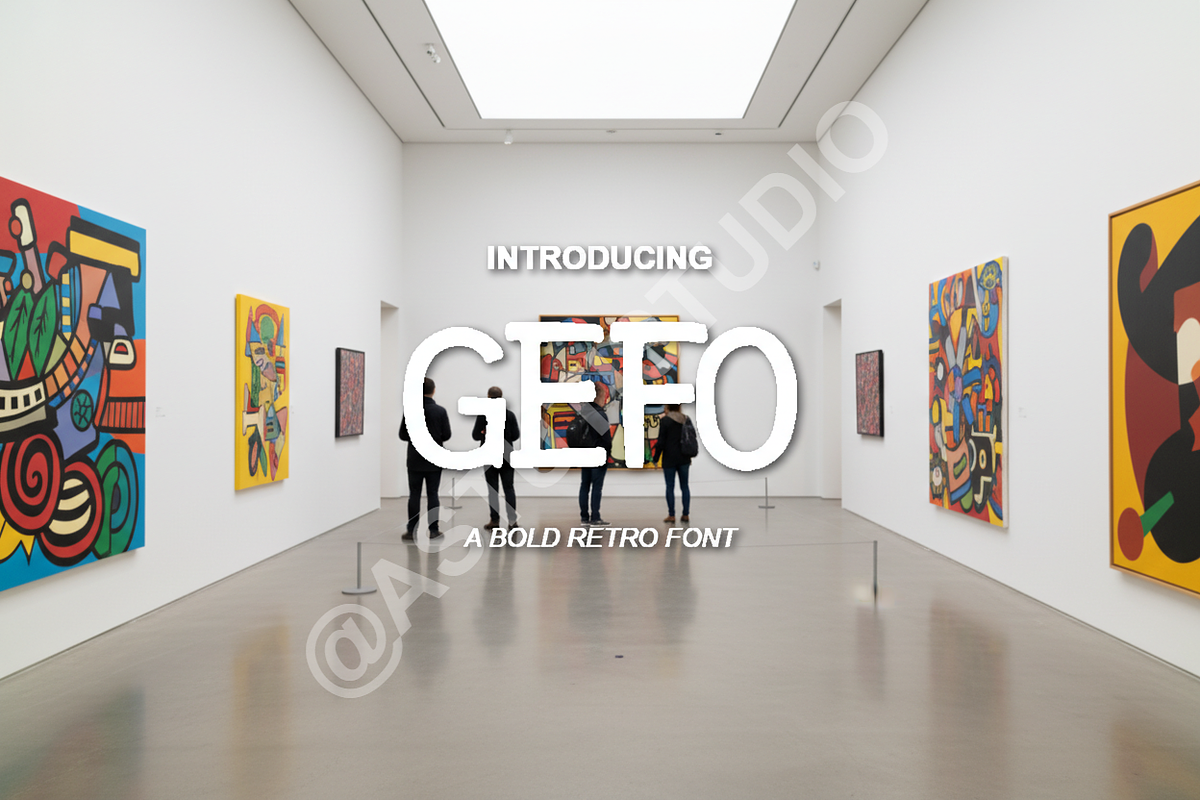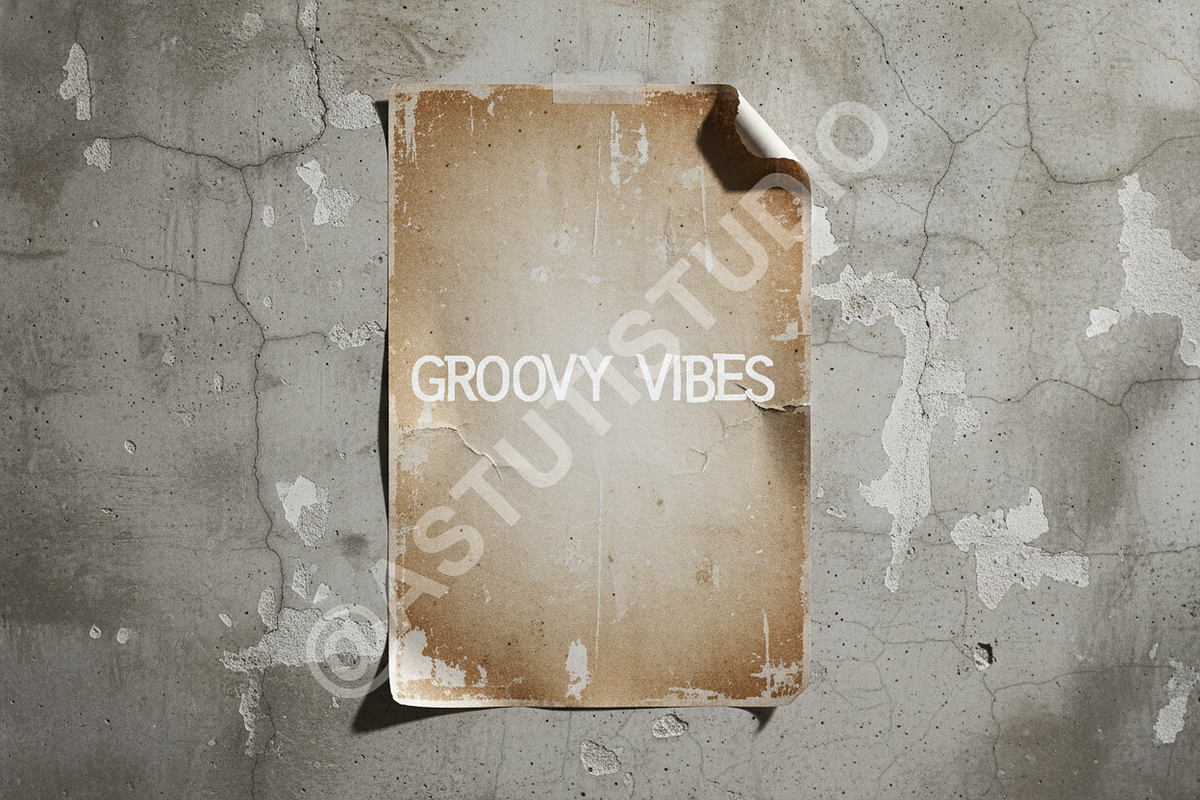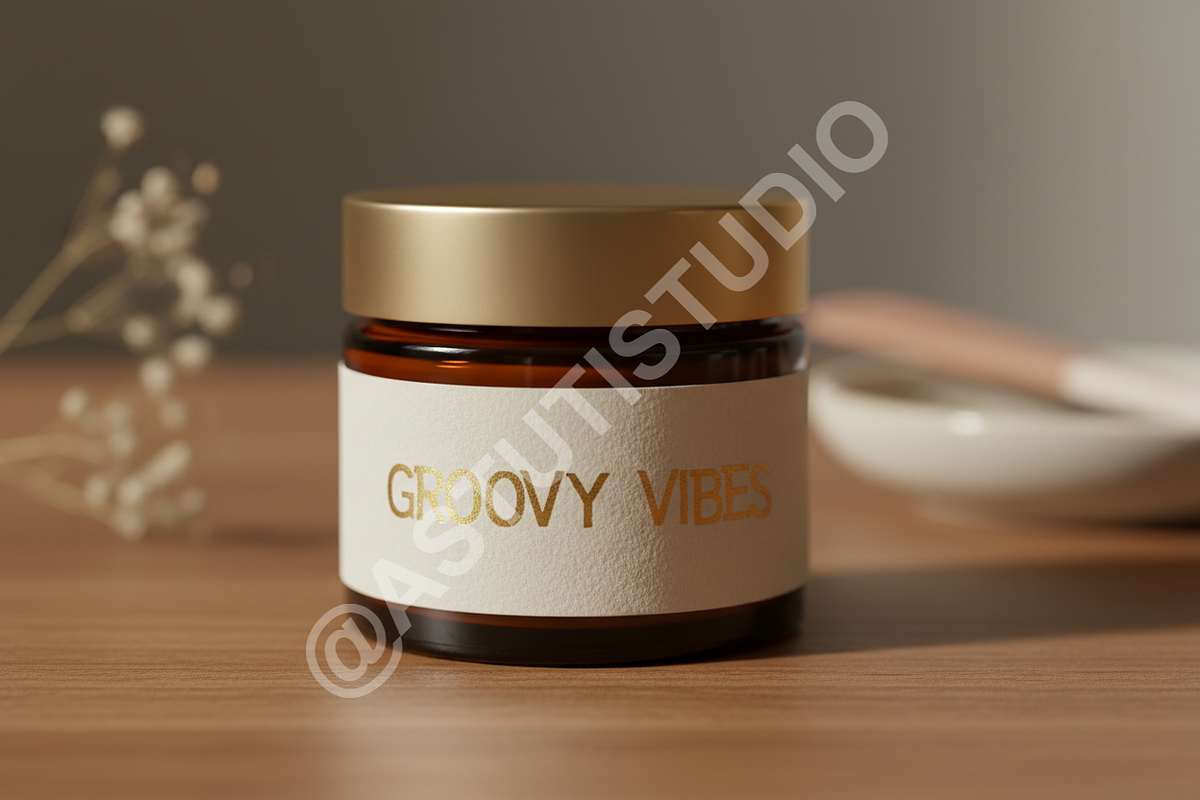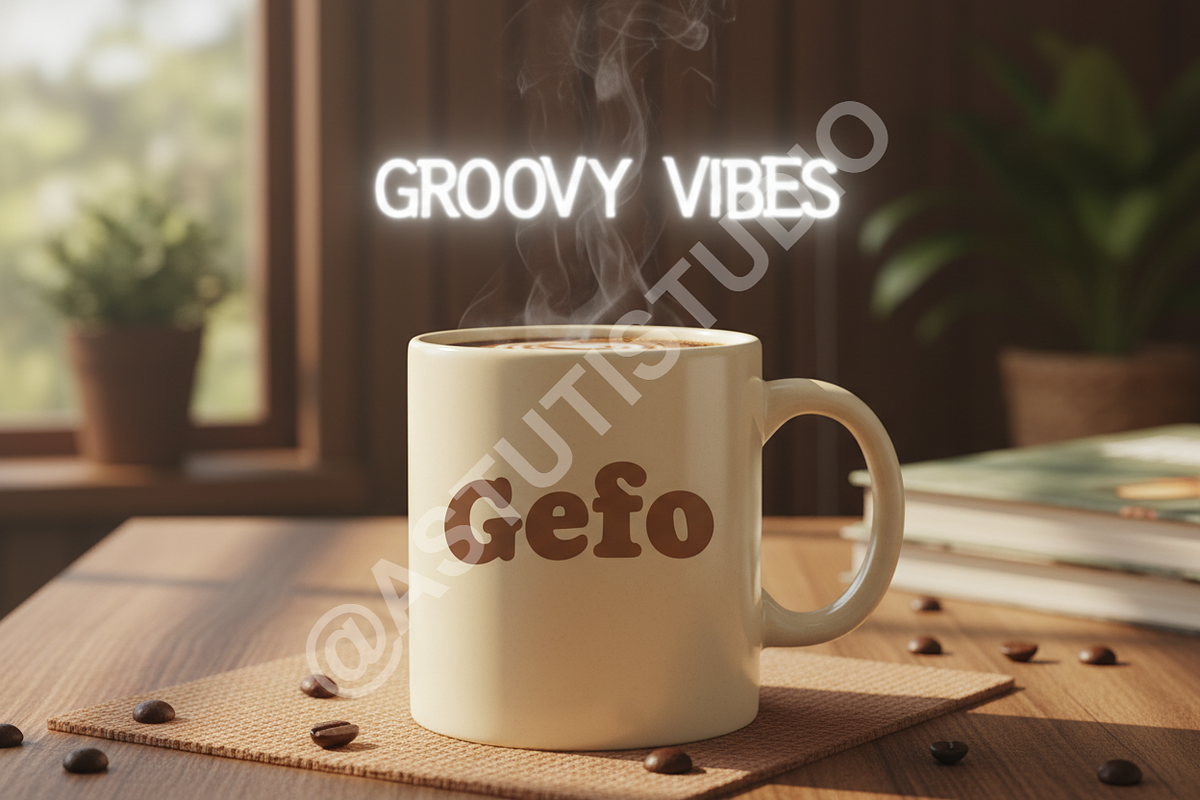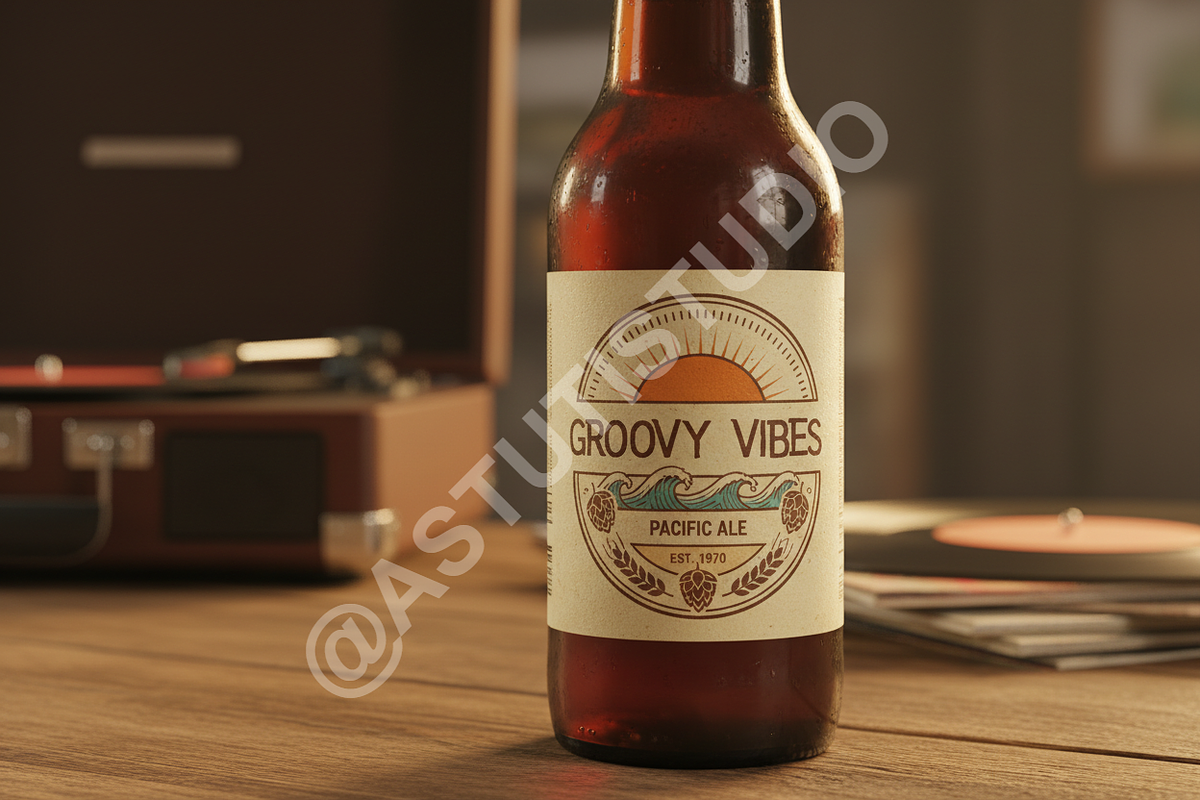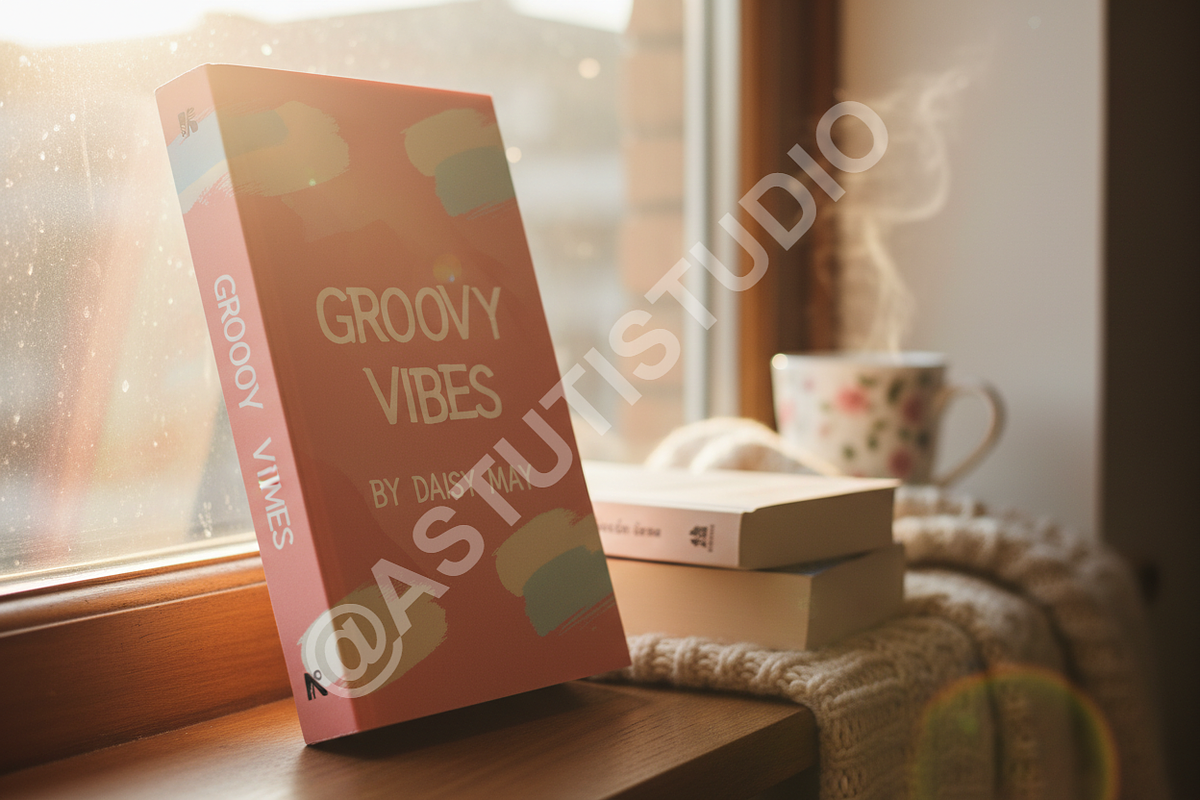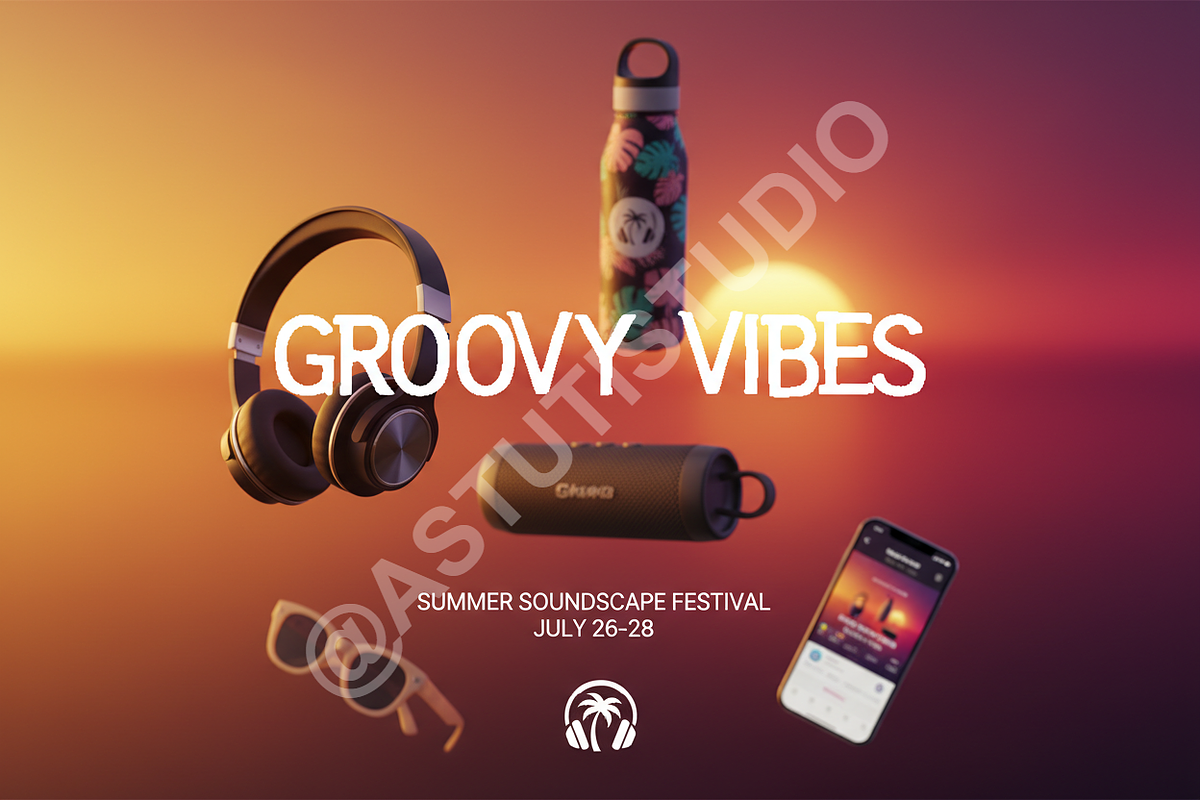
Gefo — High-Contrast Luxury Serif Fo
Introducing Gefo: A Modern Classic Serif. Gefo is meticulously crafted to elevate your design projects, offering the perfect blend of high-contrast sophistication and modern clarity. Inspired by the timeless architecture of classic serifs but refined for contemporary screens and high-fidelity print, Gefo speaks fluent luxury. It is the definitive choice for premium studios and brands seeking a distinguished, elegant voice.
— IDEAL APPLICATIONS
- Luxury Branding & Identity Design
- High-End Editorial Layouts and Magazine Design
- Influencer and High-Impact Social Media Graphics
- Sophisticated Packaging and Product Labels
— KEY FEATURES
- High-Contrast Design: Ensures stunning visual impact and readability, even at delicate sizes.
- Extensive Ligatures & Stylistic Alternates: Includes over 150 unique character pairings for maximum customization and typographic finesse.
- Full Multilingual Support: Covering 90+ languages including Western, Central, and South Eastern European characters.